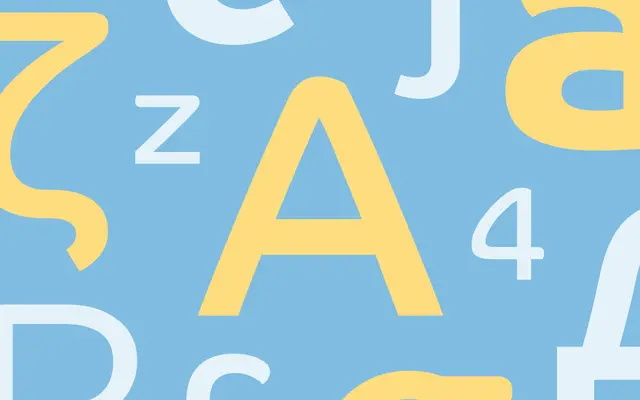
Co
Dalton Maag · Ron Carpenter · 2021
Co specimen from Dalton Maag
A multi-script humanist sans by Ron Carpenter with optical Text and Headline cuts, built for branding and editorial work across Arabic, Cyrillic, Greek and Latin.
A humanist sans by Ron Carpenter that sits on a geometric skeleton and finishes with distinctive rounded terminals. Text and Headline optical sizes run across Light, Regular and Bold, so the same family flexes from long-form reading to confident display. Multi-script support across Arabic, Cyrillic, Greek and Latin Extended makes it a workhorse for global brand and editorial systems that want warmth without losing engineering.
Dalton Maag describe Co as a versatile humanist sans with an underlying geometric structure and rounded terminals, split into Text and Headline optical sizes for body and display use across multiple writing systems.